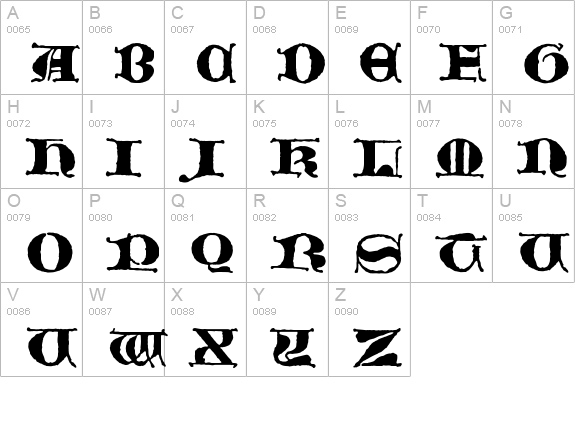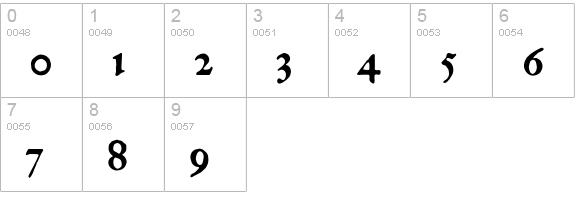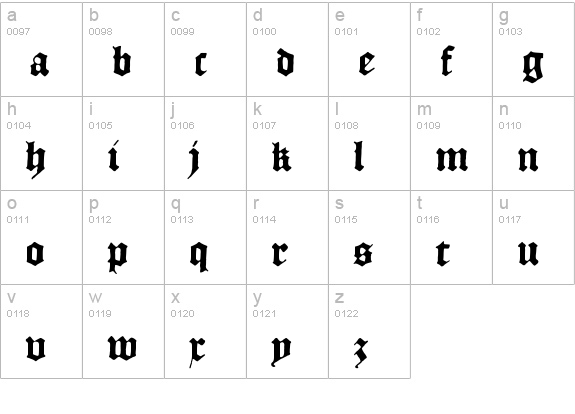
Historical-GreatPrimerUncials Font Details
Historical-GreatPrimerUncials font is a stunning display of ancient calligraphy, capturing the essence of early manuscript writing with its intricate flourishes and elegant letterforms. This typeface exudes a sense of timeless beauty and sophistication, making it an ideal choice for projects that require a touch of historical charm. With its classic design and graceful curves, Historical-GreatPrimerUncials font adds a touch of refinement to any text or design. Whether used for invitations, branding, or editorial content, this font brings a sense of nostalgia and authenticity to your work. The best part is that Historical-GreatPrimerUncials font is completely free to download at FontsMarket.com. Now you can easily access this exquisite typeface and enhance your projects with its unique character and historical flair. Don't miss the opportunity to add a touch of elegance to your designs with Historical-GreatPrimerUncials font, available for free download today.